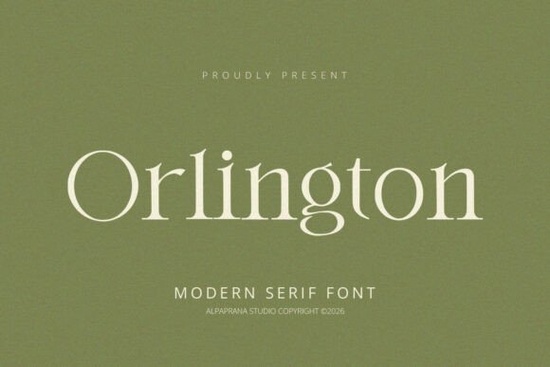
If you've been searching for a serif typeface that feels clean and current without losing that classic touch, the Orlington Font is worth a close look. Designed by Alpaprana, it blends modern aesthetics with traditional serif structure, making it a strong option for branding projects, packaging, print-on-demand products, and everyday design work. Whether you're a freelancer building client identities or a small business owner creating your own marketing materials, this font brings a polished yet approachable feel to your layouts.
What Kind of Style Does the Orlington Font Deliver?
Orlington sits in that sweet spot between formal and fresh. It's a modern serif, which means you get the elegance of traditional serifs those small strokes at the ends of letterforms but with cleaner lines and a more balanced weight. This makes it easier to read at different sizes, whether it's displayed on a large poster or printed on a clothing tag.
Compared to more decorative options like Savage Roses Font, which leans into bold, expressive lettering, Orlington keeps things refined. It doesn't scream for attention it earns it through simplicity. If your project calls for a typeface that communicates trust and quality without feeling outdated, this one does the job well.
Where Can You Use a Font Like This?
One of the best things about Orlington is its versatility. It works across a wide range of design projects, including:
- Branding and logo design clean enough for wordmarks, distinctive enough to stand alone
- Packaging and shopping bags gives products a professional, premium appearance
- Book covers and magazine layouts pairs well with body text fonts for editorial work
- Poster and flyer design legible at both headline and subheadline sizes
- T-shirt and clothing design especially for minimalist or typography-focused apparel
- Event invitations and stationery weddings, launches, and special occasions
- Photography watermarks or overlays subtle enough not to distract from the image
If you sell on platforms like Redbubble, Merch by Amazon, or Etsy, having a reliable serif font like Orlington in your toolkit means you're always ready for new design ideas. It's the kind of typeface that adapts to the project rather than forcing the project to adapt to it.
What Features Come with the Orlington Font?
Orlington includes all the essentials you'd expect from a professional-quality font, plus a few extras that make it more flexible:
- Uppercase and lowercase characters for full typographic range
- Numerals for pricing, dates, and numbered lists
- Standard punctuation marks (OpenType standard)
- Multilingual accents so you can typeset in languages beyond English
- Ligatures and stylistic alternates for adding variety and visual interest to your lettering
How Does It Compare to Other Serif Fonts?
There's no shortage of serif fonts available, so how does Orlington hold up? It depends on what you need. If you're working on a project that needs a typewriter aesthetic, something like Office Typewriter Font might be a better fit. For more delicate, feminine projects, the Twinklea Font offers a lighter, more whimsical feel.
But if your goal is a clean, modern serif that works across multiple project types without feeling too trendy or too traditional, Orlington hits that middle ground. It pairs nicely with sans-serif fonts for body text, and its stylistic alternates give you room to customize without needing a second typeface. You might also explore Rofina for serif-heavy branding or check out Munnes for editorial-style layouts if you want to compare options before committing.
Is It Worth Adding to Your Font Collection?
If you regularly work on branding, packaging, or print-on-demand designs, yes. Having a dependable modern serif saves you time on future projects. You won't need to hunt for a new typeface every time a client asks for something "clean but not boring." Orlington fills that role reliably.
- Test the alternates the stylistic sets and ligatures add real value, so explore them in your design software
- Pair it wisely try combining Orlington with a simple sans-serif for balanced layouts
- Preview at multiple sizes what looks great at 72pt might need kerning adjustments at 14pt